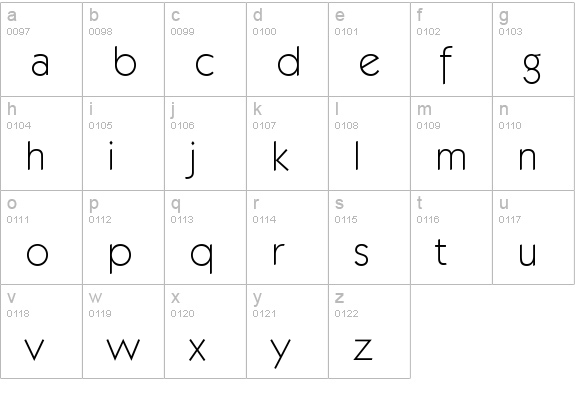
Koblenz-Xlight is an elegant and modern font that exudes sophistication and class. With its sleek lines and stylish curves, this font is perfect for adding a touch of sophistication to any design project. The Koblenz-Xlight font is versatile and can be used for a variety of purposes, from branding to invitations to web design. One of the best things about the Koblenz-Xlight font is that it is completely free to download. You can easily access this beautiful font at FontsMarket.com, where you can download it and start using it in your designs right away. Don't miss out on the opportunity to enhance your projects with the timeless appeal of Koblenz-Xlight font – download it today and let your creativity shine!